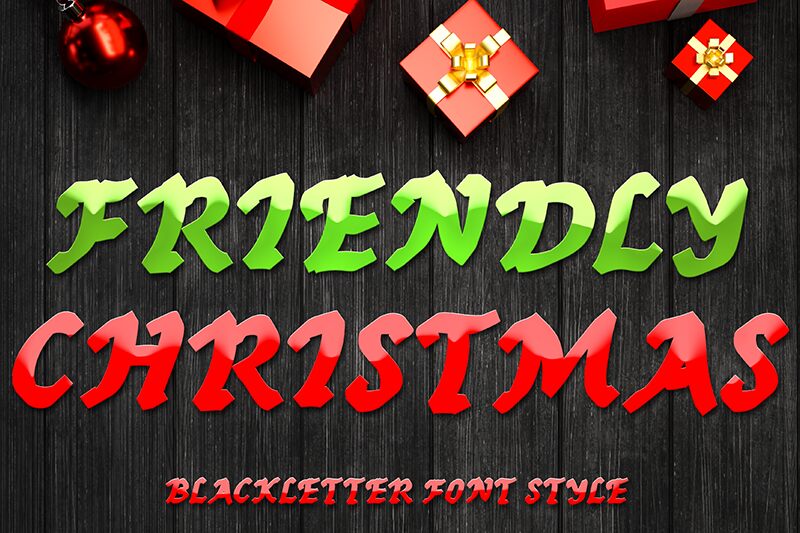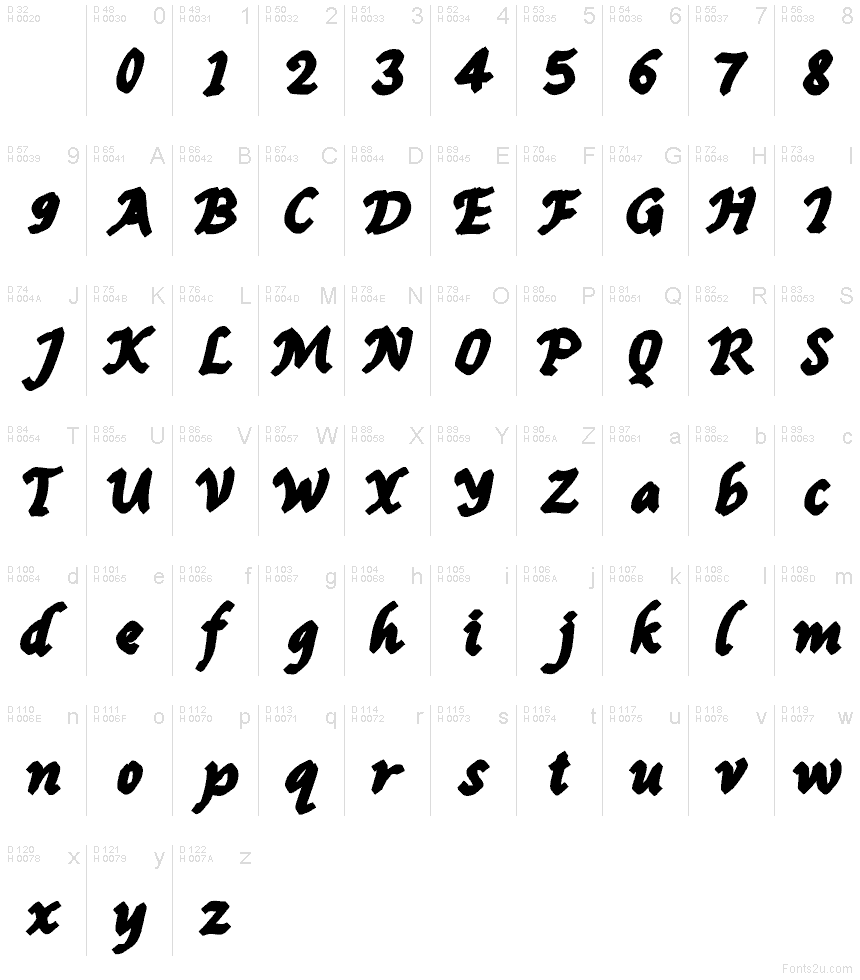
Friendly Christmas Demo
Friendly Christmas font by Yoga Letter is a free Christmas script typeface with a warm, hand-lettered sway that feels like it was brushed across a holiday card. The strokes are bold and slightly inky, with gentle curves that give each word a cozy, homemade charm—like frosting piped over gingerbread. Its flowing rhythm keeps text readable while still feeling festive and a bit whimsical, making it easy to bring instant holiday spirit to your layouts.